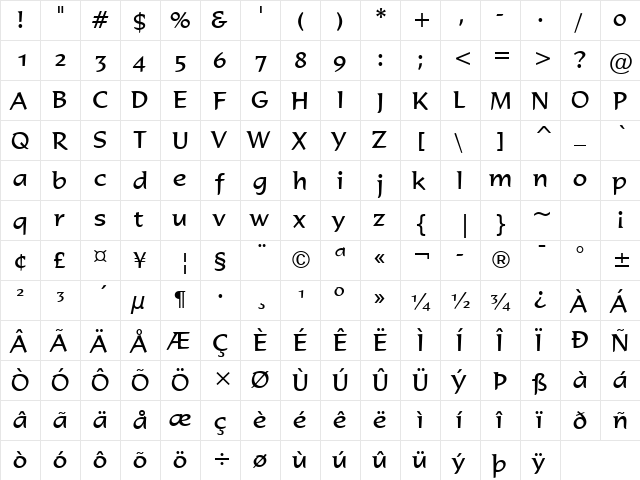
Formal436 BT Regular
Design Context for Formal436 BT Typeface
Formal436 BT is a composed and adaptable typeface that performs quietly and consistently across a wide range of design contexts.
Pro Tip: Use Formal436 BT in both headline and body roles to test its range before committing to a single application.